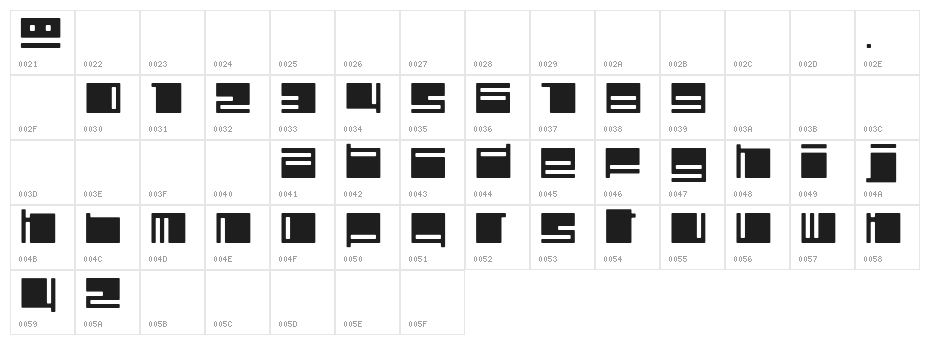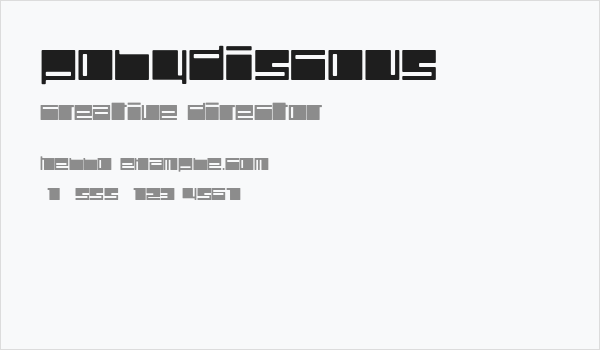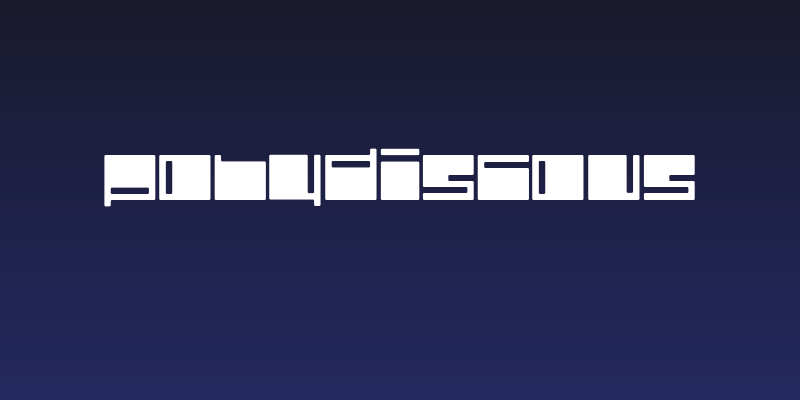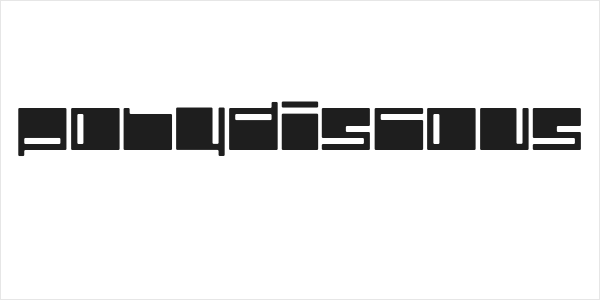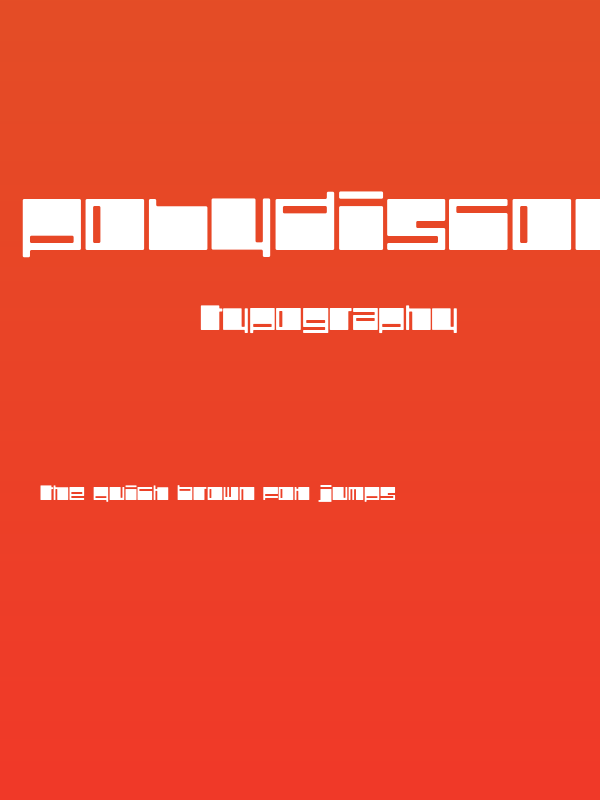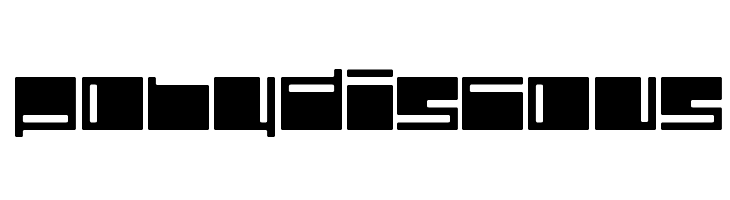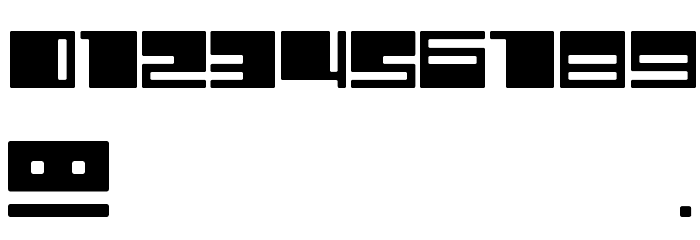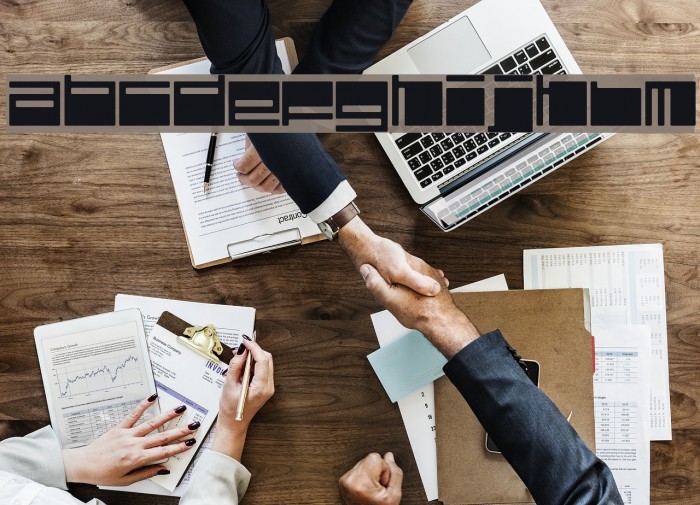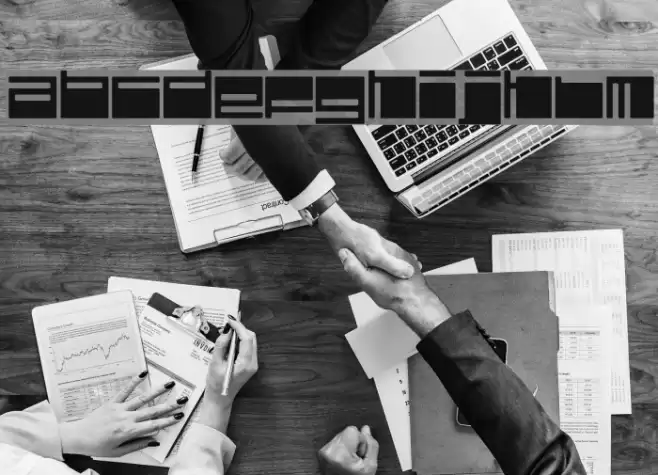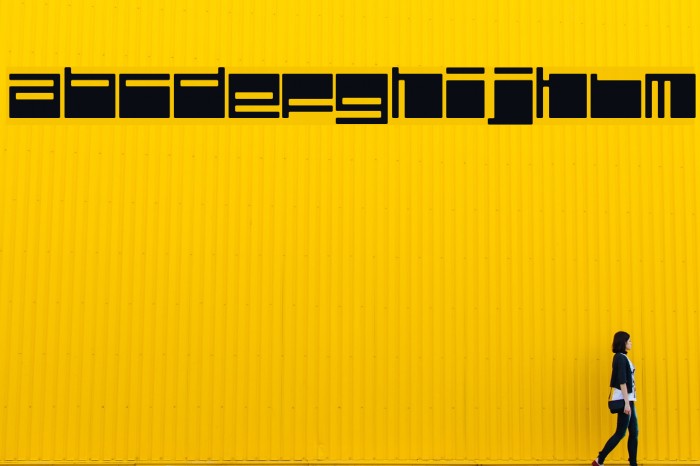
Polydiscous Font
Polydiscous Description
This font features a bold, geometric design with a distinctly modern and futuristic aesthetic. Each character is enclosed within a square or rectangular shape, giving it a structured and uniform appearance. The font's design is characterized by its blocky and robust letterforms, which are consistent across both uppercase and lowercase letters. The numbers and special characters follow the same design principles, ensuring a cohesive look throughout. The font's unique style makes it stand out, with its high contrast and solid, filled-in shapes that create a striking visual impact.
| Use Case | Logos, Headlines, Posters |
| Proposed Projects | Ideal for sci-fi themed projects, technology branding, video game titles, and futuristic posters. |